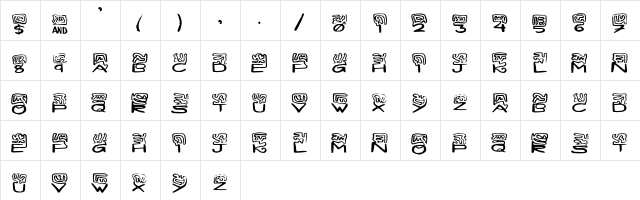
LAVA LAMP Regular
Design Context for LAVA LAMP Typeface
LAVA LAMP is a composed and adaptable typeface that performs quietly and consistently across a wide range of design contexts.